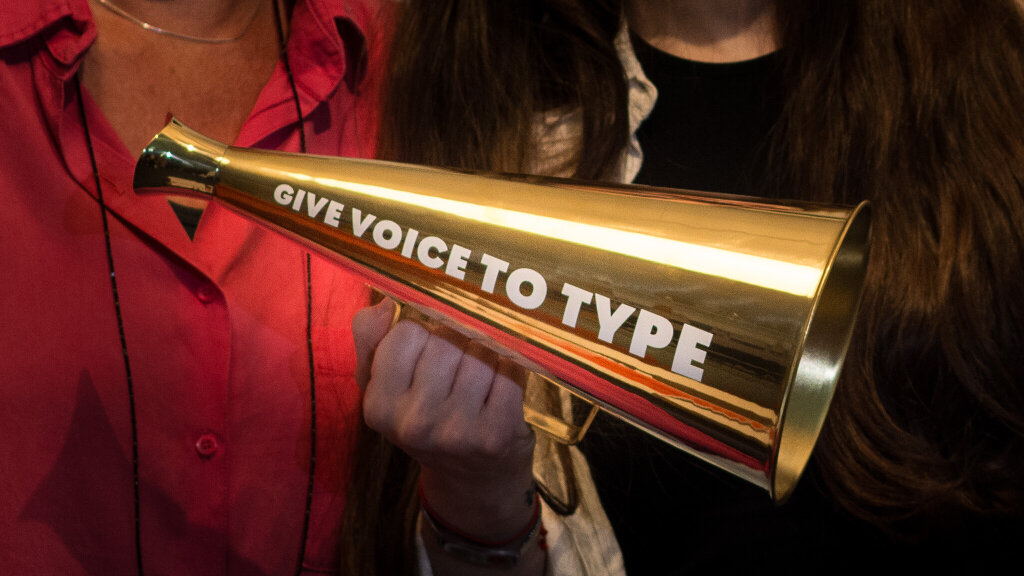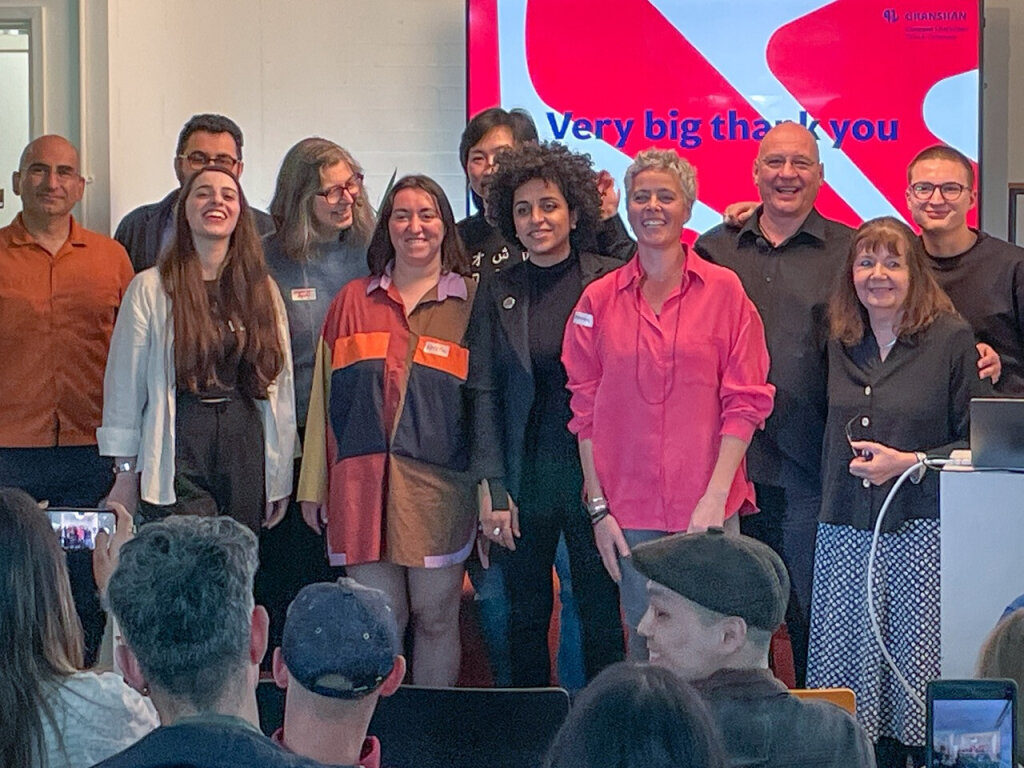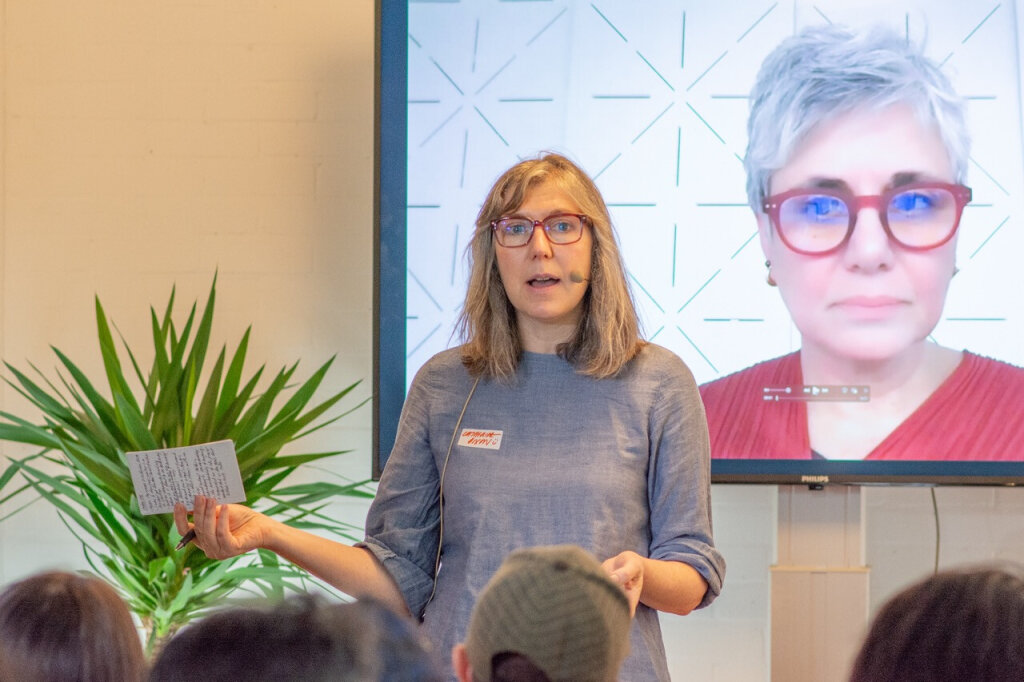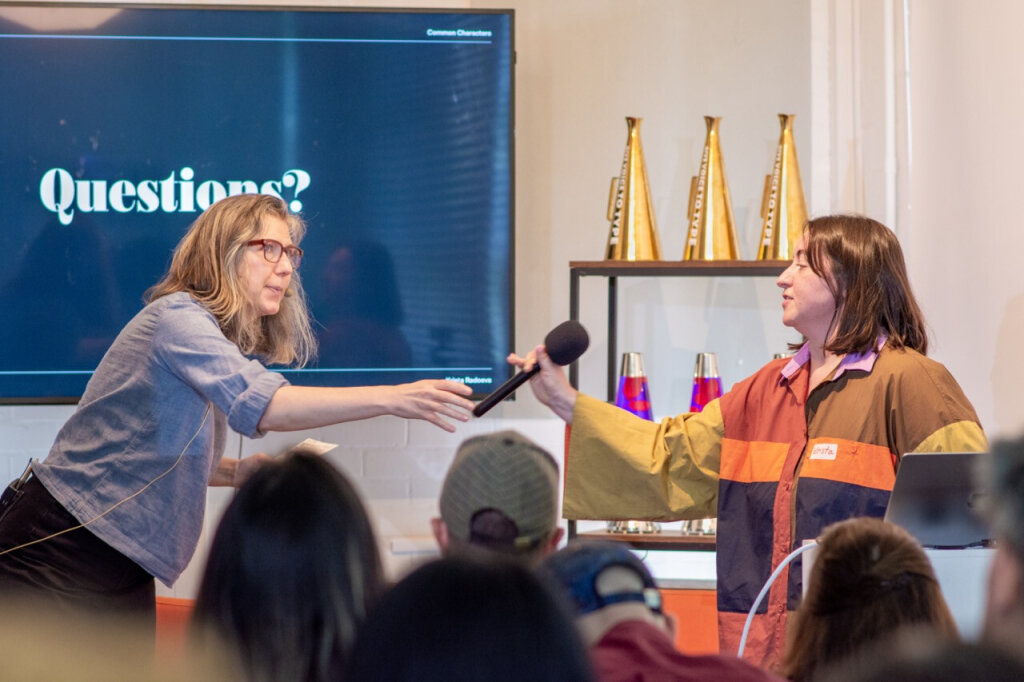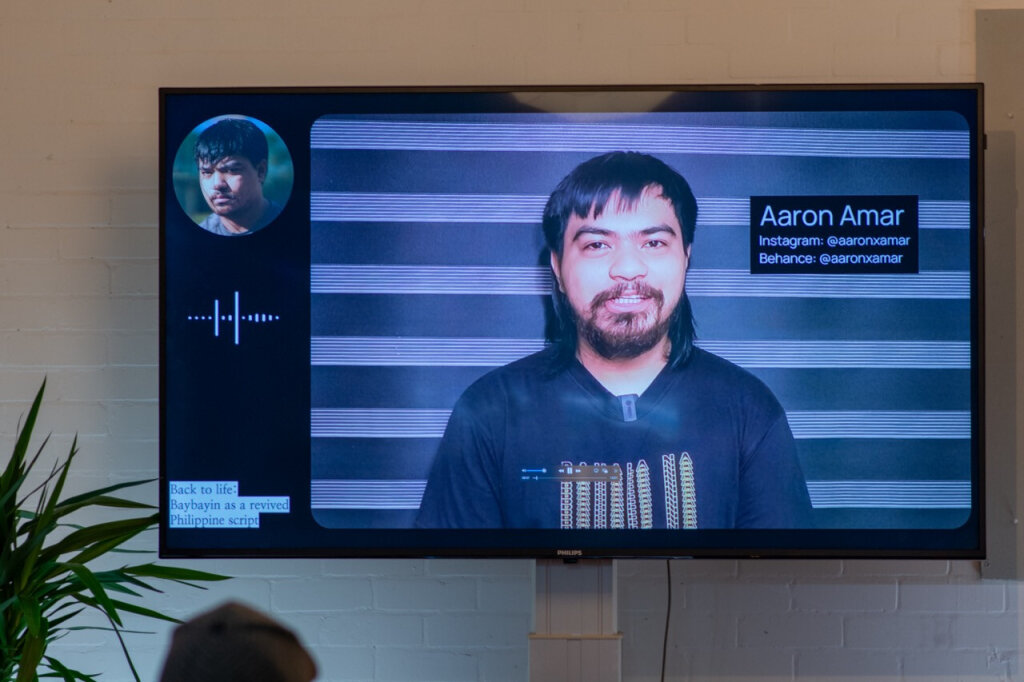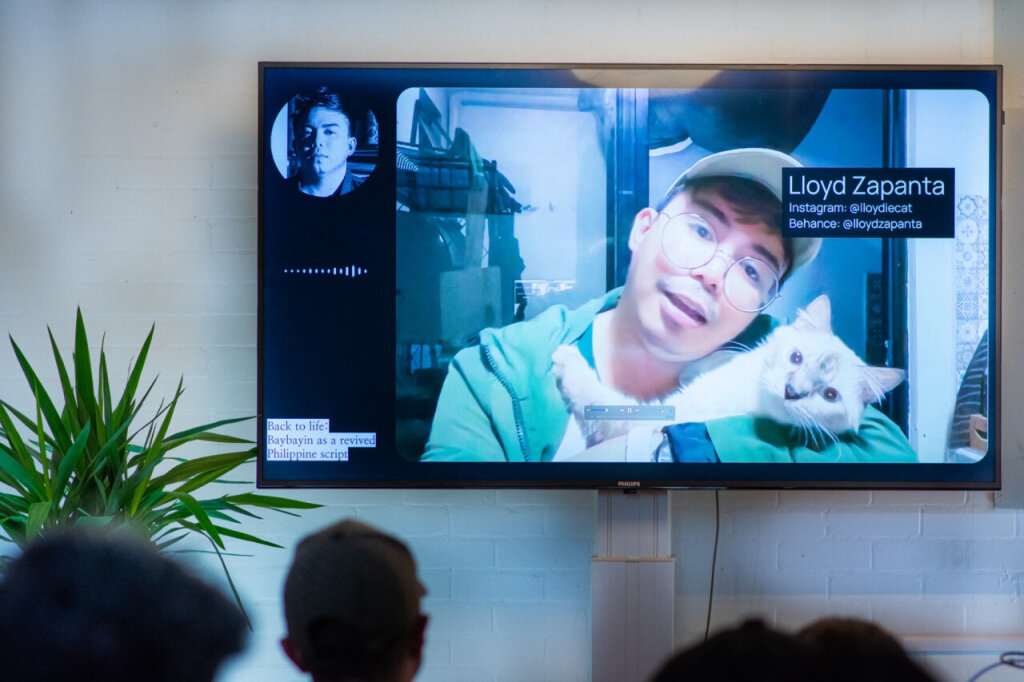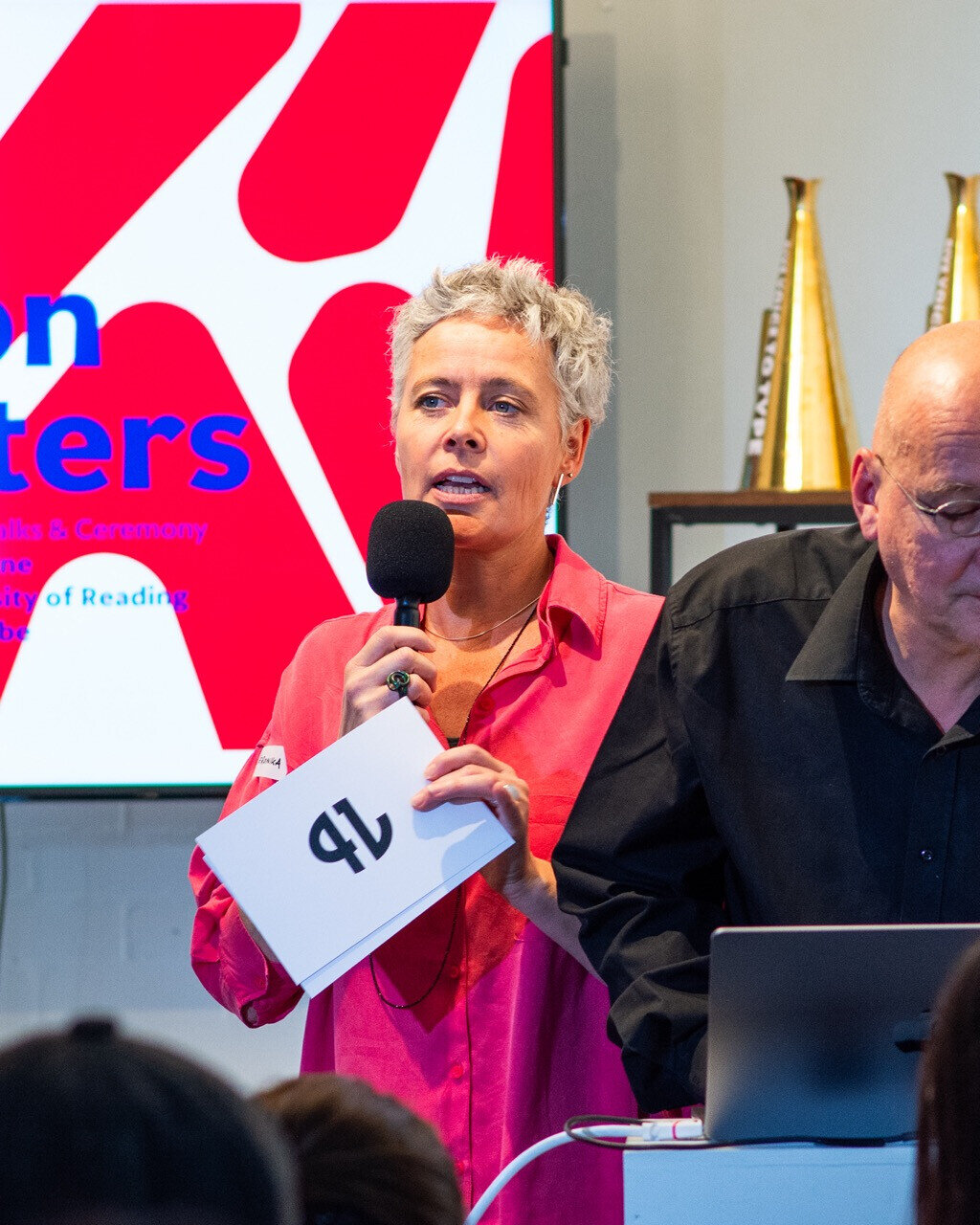
Common Characters: GRANSHAN Talks & Ceremony in Reading
A (Typo) Day Among Friends
Exciting talks, inspiring discussions and the announcement of the winners of the 13th GRANSHAN Type Design Competition – Common Characters: GRANSHAN Talks & Ceremony at the University of Reading on June 17 was a complete success for the 50 or so participants live on site and many more online on YouTube.
The original lava lamps, which were the inspiration for the event’s key visual, almost stole the show from the gold-colored megaphones with the inscription GIVE VOICE TO TYPE. But only almost. After all, the megaphones are now coveted awards that you only get for winning first prize in one of the ten script groups at the GRANSHAN Type Design Competition.
Golnar Katrahmani came from Berlin for the keynote, where the Iranian-born designer has lived for many years and runs her own design studio. Since 2018, she has also been on a mission to improve the often negative political and ideological connotations of Arabic script. »How can Arabic script be seen as something other than problematic?« asks Golnar Katrahmani programmatically. Her answer: for example, through workshops and lectures that promote cultural exchange and knowledge transfer, but also through great graphic design and fashion with Arabic typography.
This was followed by presentations by Krista Radoeva from Sofia, Bulgaria, who gave a brief historical outline and made it clear that Cyrillic is by no means synonymous with Russian, and by Dr. Huda Smitshuijzen AbiFarès. Due to technical problems, her presentation could not be shown – the video will be available shortly on the GRANSHAN YouTube Channel and here on the website. Her exhibition »The inner structures and outer rhythms of contemporary Arab and Persian graphic design« is on view at the Museum für Kunst und Gewerbe Hamburg (MK&G Hamburg) until 31 May 2025.
Also connected via video conference were designers Aaron Amar and Lloyd Zapanta from the Philippines, who spoke about the revived Philippine script Baybayin. Between the presentations, the two GRANSHAN Chairpersons Veronika Burian and Toshi Omagari announced the winners in the various Script Groups.
One of the highlights was the awarding of the Grand Prize to Ana Sanikidze. The type designer had traveled all the way from Tbilisi, Georgia, to receive her prize. When she received the megaphone (and 3,000 euros in prize money), she was beaming all over her face and then gave a convincing presentation on Georgian type in general and her fonts »Nocturno Georgian« and »Adapter Georgian« in particular.
Finally, GRANSHAN President Boris Kochan announced the presentation of the Lifetime Honor Medal to Edik Ghabuzyan, which will take place live and on site at the Mesrop-Mashtoz Institute for Ancient Manuscripts, or Matenadaran for short, in Armenia on September 7.
The informative exchange on this well-filled day did not end with the last lecture – the friendly atmosphere and discussions continued for a long time in the campus' own beer garden.